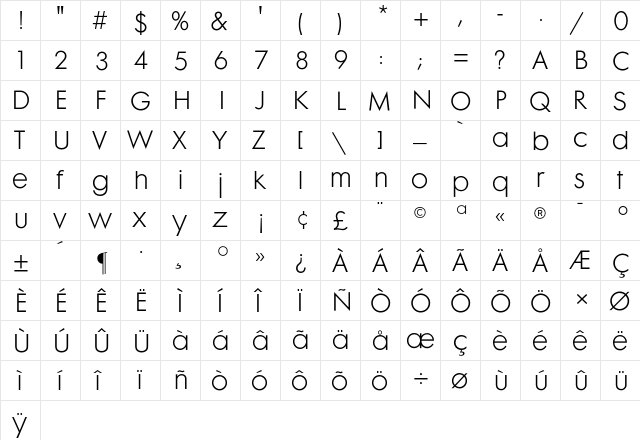
Futura Maxi CG Light Regular
Design Context for Futura Maxi CG Light Typeface
Futura Maxi CG Light has a distinctly futuristic character, with geometric precision and clean angles that feel at home in technology, gaming, and sci-fi contexts. Its slender proportions lend an understated elegance to any composition.
Pro Tip: Use Futura Maxi CG Light in combination with a neutral sans for body text. Let it define the brand voice in headlines while keeping reading comfortable elsewhere.